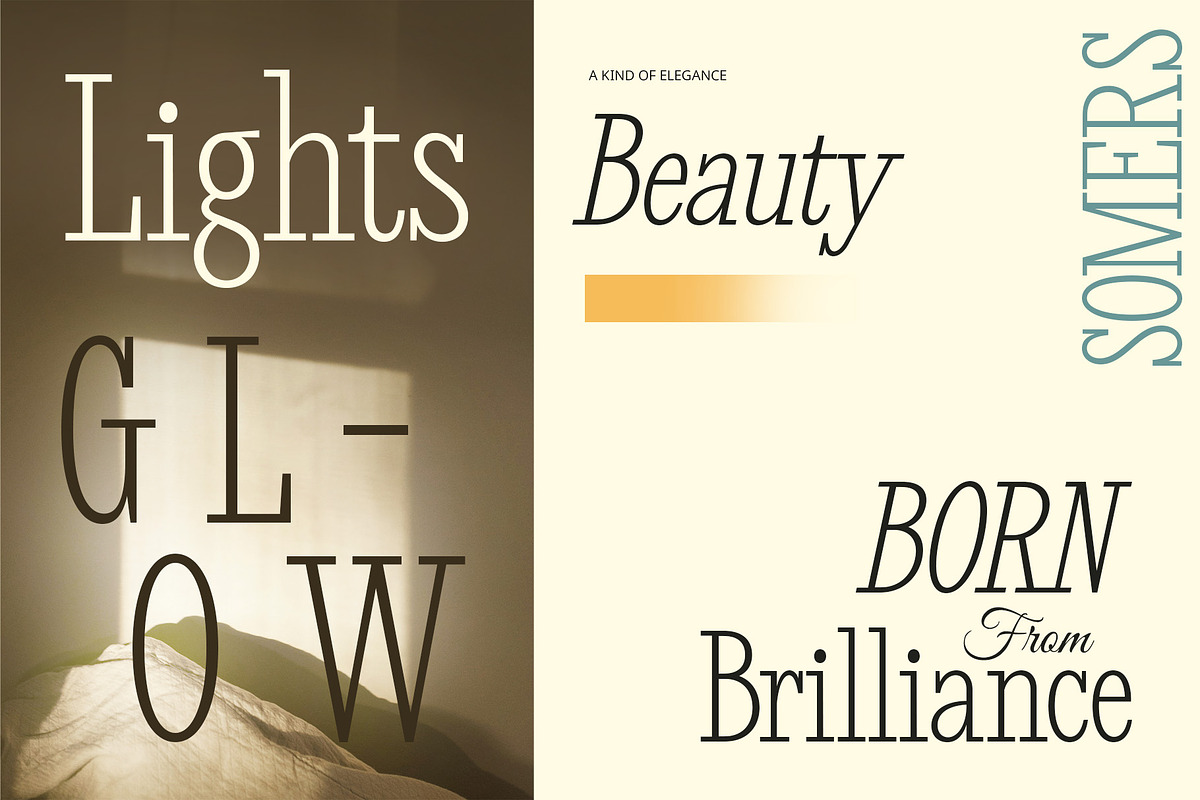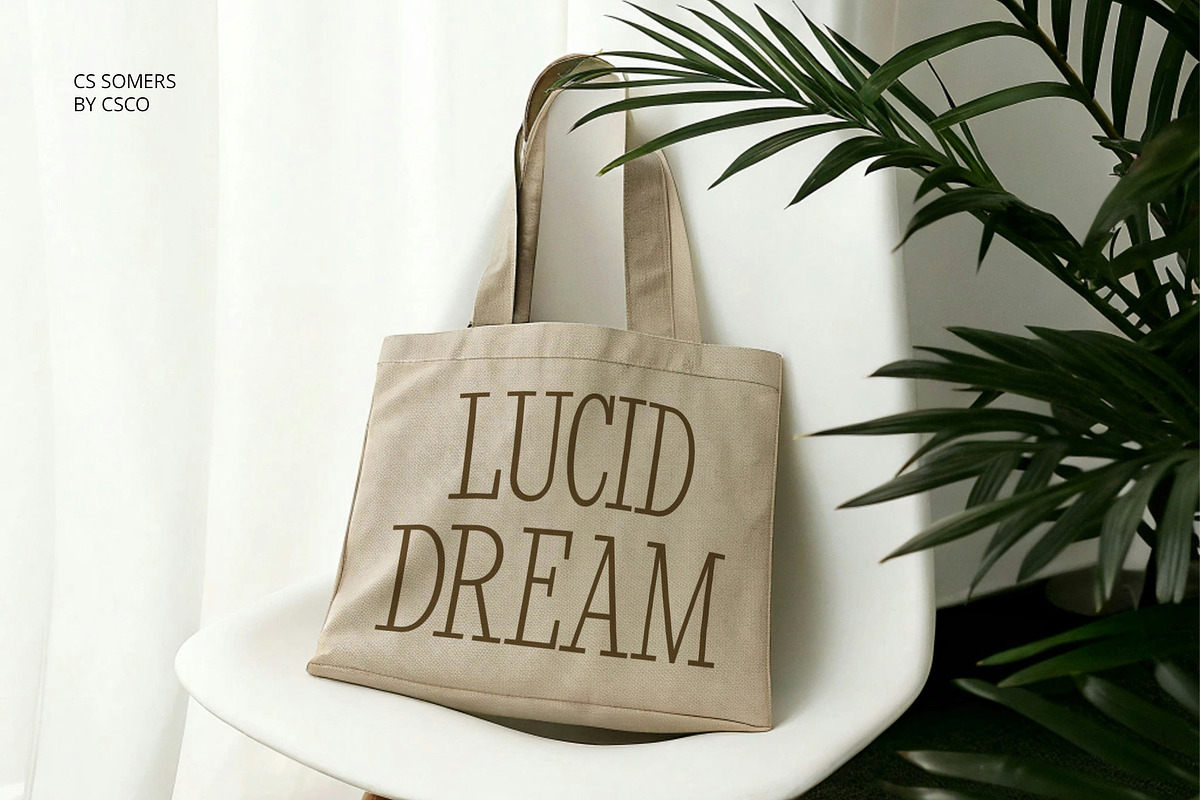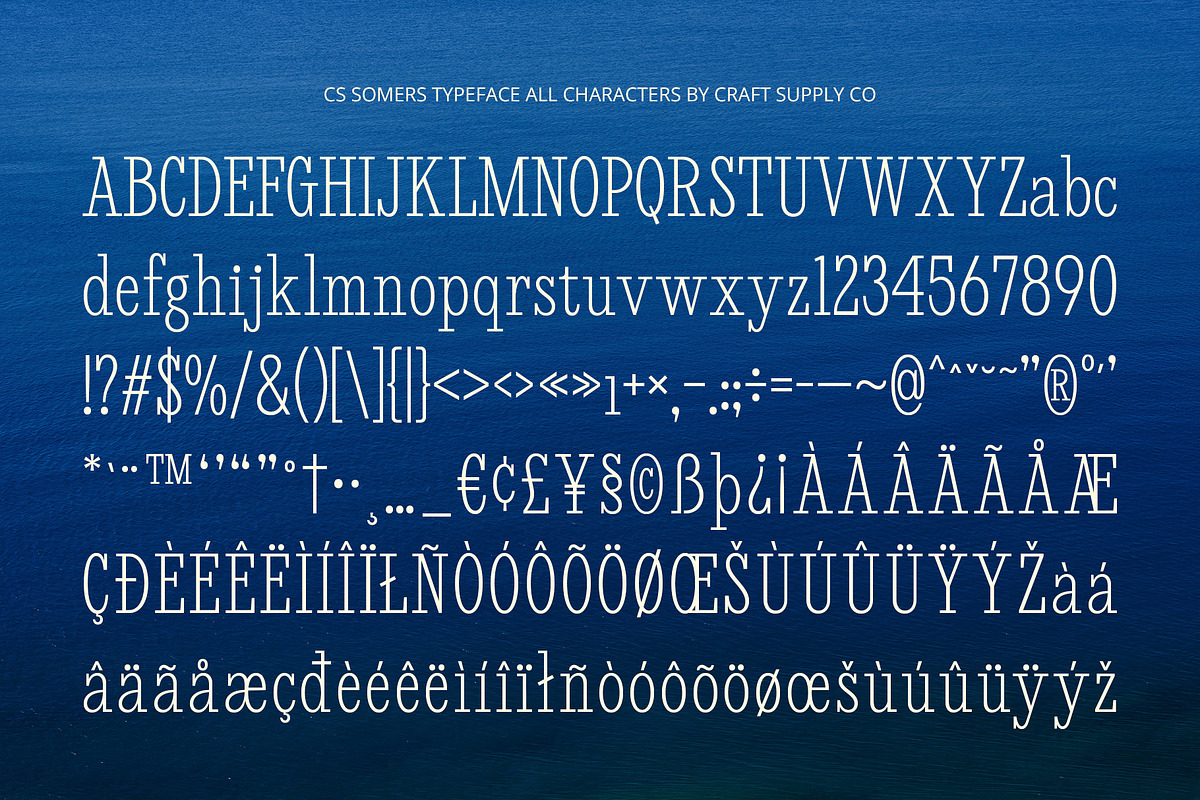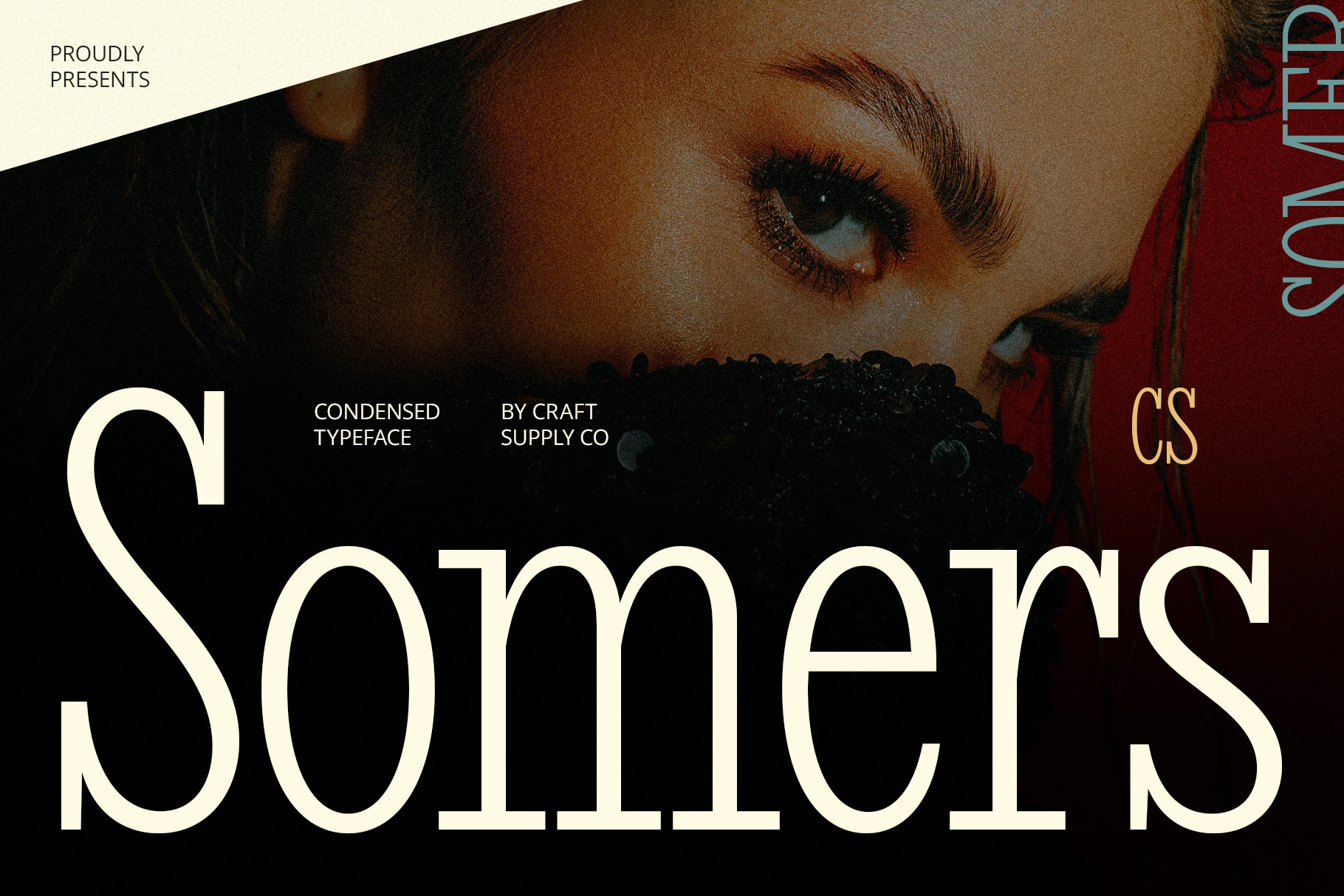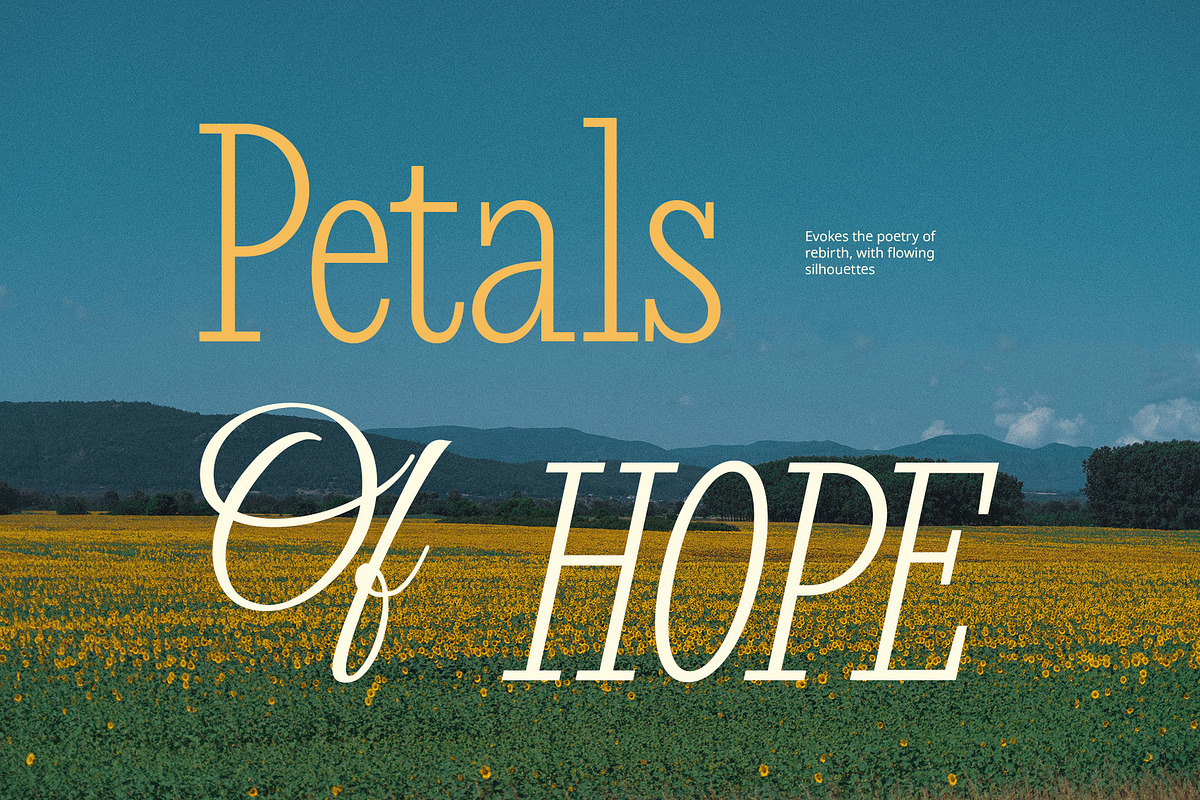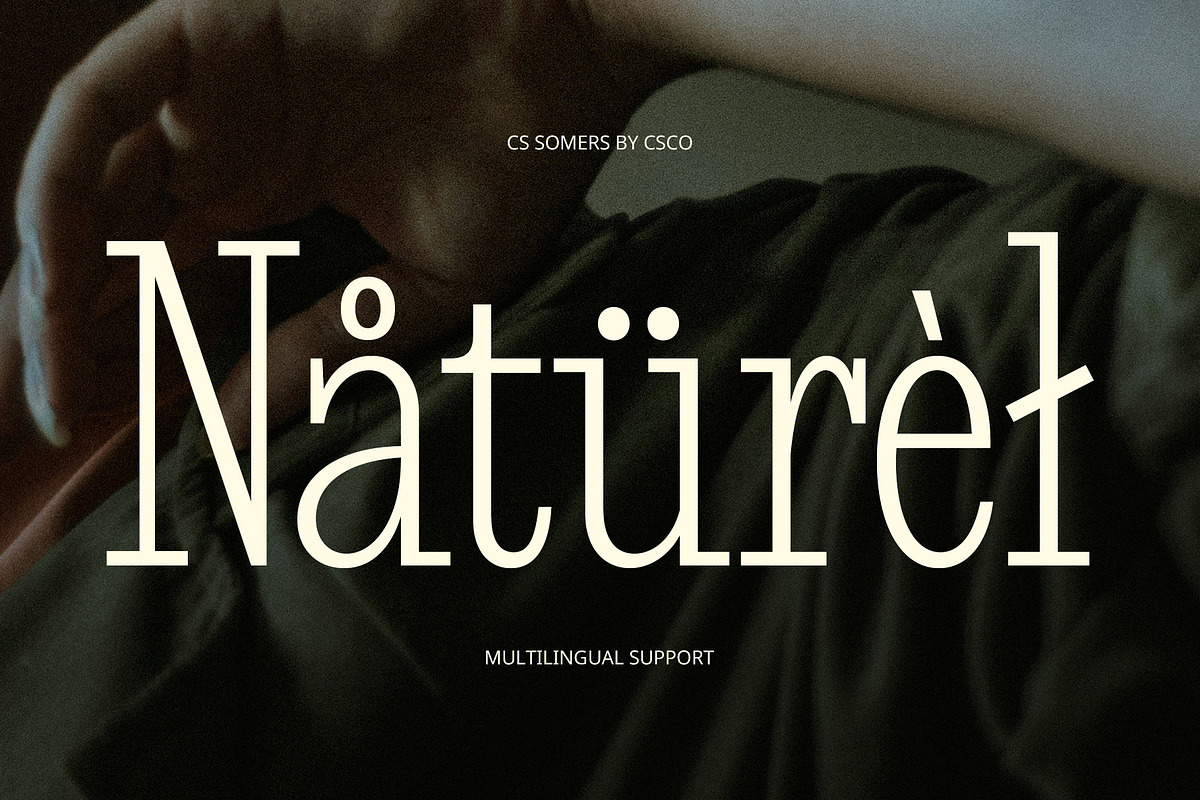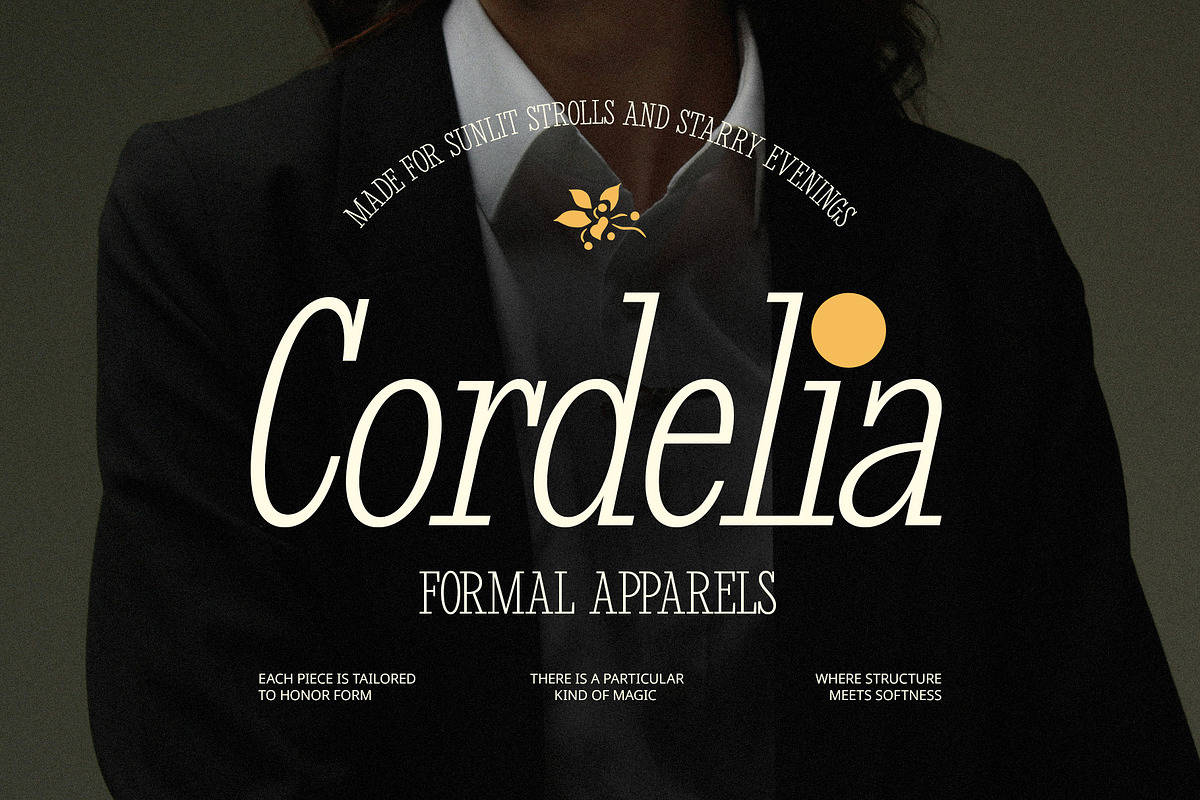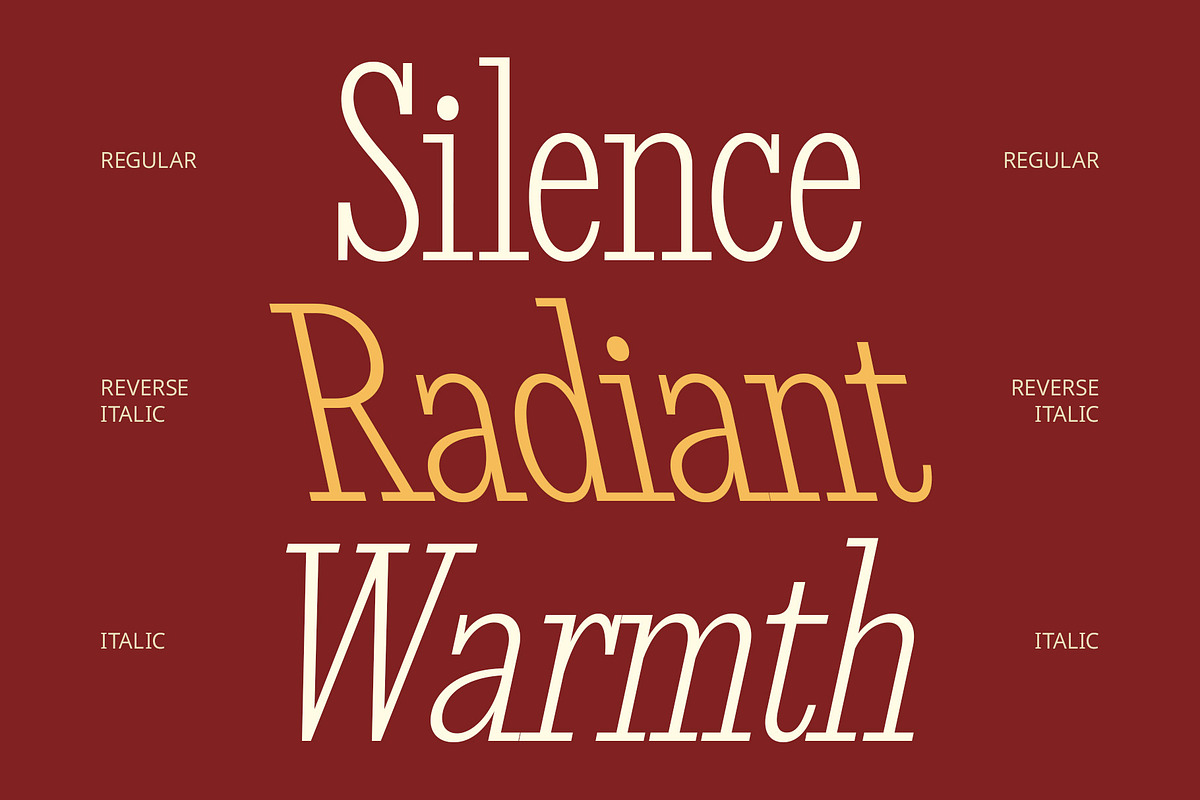
CS Somers – Condensed Font
CS Somers – Condensed Font: Slim Elegance with a Professional Edge
Condensed Serif Font CS Somers – Condensed Font is a refined serif font with slim, condensed proportions designed for efficiency and elegance. Its minimalist construction and classic serif details offer a sleek and modern appearance while preserving timeless charm and legibility.
Optimized for Space and Clarity Thanks to its narrow width and compact form, CS Somers is perfect for layouts where space is at a premium. Whether it’s for editorial headlines, packaging, or digital interfaces, the font allows designers to include more content without overwhelming the layout—delivering clarity, order, and visual harmony.
Elegant Meets Minimalist The font’s elegant serif shapes are paired with a clean, understated design that balances tradition and modernity. Its subtle classical touch enhances its sophistication, creating a polished look suitable for luxury branding and formal design projects.
Ideal for Premium and Corporate Use CS Somers is well-suited for professional and high-end applications, including corporate identities, premium packaging, and editorial spreads. Its stylish yet restrained character communicates trust, sophistication, and modern refinement in every project.
- CS Somers Regular
- CS Somers Italic
- CS Somers Reverse Italic